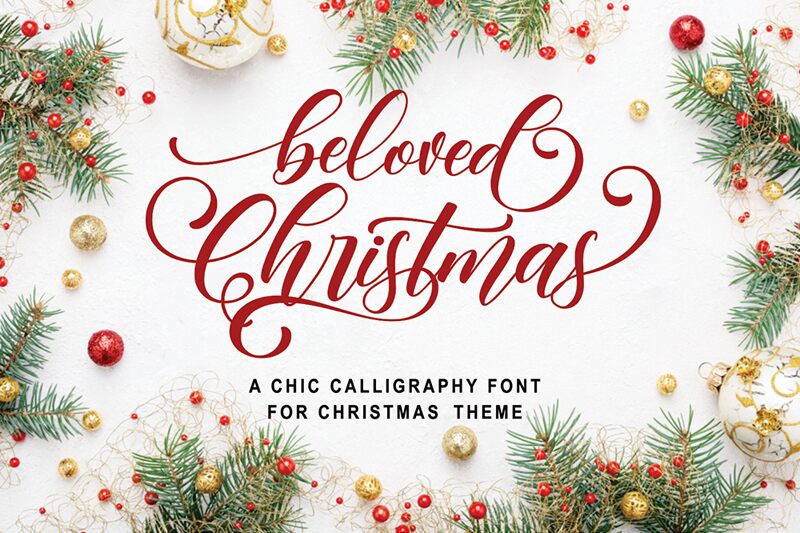
Beloved Christmas by Mozatype is a captivating calligraphic font that exudes the spirit of the holiday season. This condensed script typeface boasts a refined, elegant aesthetic, with flowing strokes that dance across the page, evoking a sense of festive joy and warmth. The intricate, intertwined letterforms create a harmonious and visually striking composition, seamlessly blending tradition and modernity.
Beloved Christmas' versatility allows it to shine in a wide array of design applications, from holiday-themed branding and packaging to festive digital content and printed materials. Its condensed width makes it an excellent choice for limited-space projects, while its calligraphic charm lends itself beautifully to greeting cards, invitations, and other personalized items. Whether you're crafting a cozy seasonal ambiance or seeking to infuse your designs with the magic of the holidays, Beloved Christmas by Mozatype is a captivating font that will elevate your creative vision.